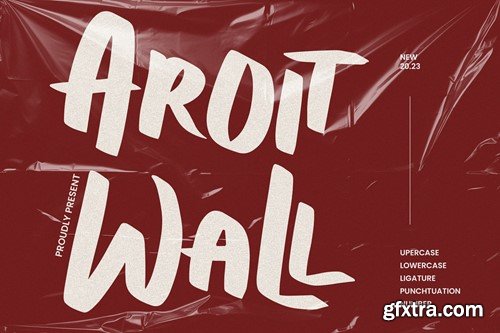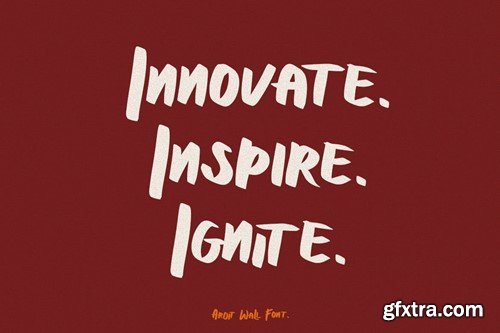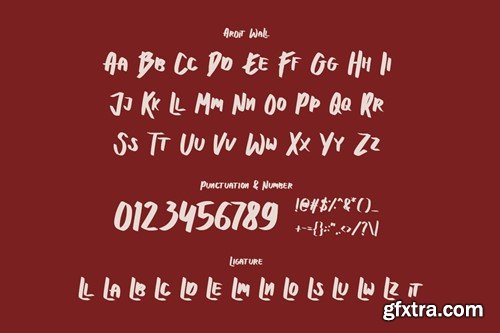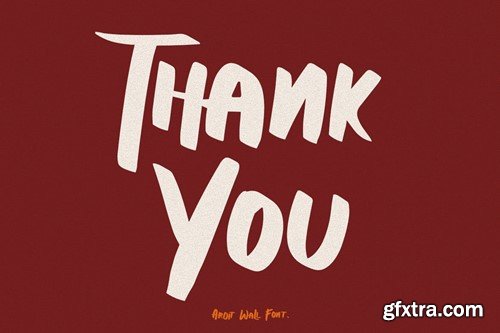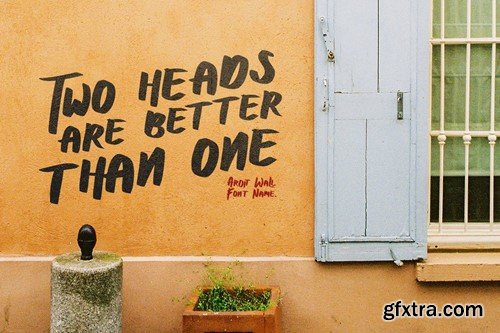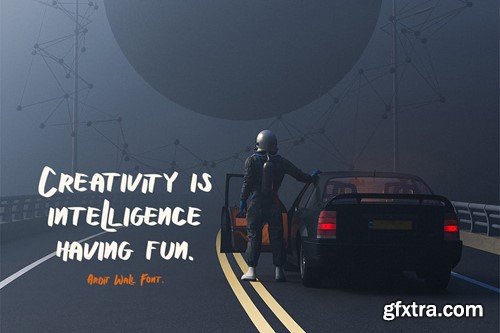
阿罗伊墙 - 现代显示器字体 SF8LZNN
Aroit Wall - Modern Display Font
Aroit Wall is an awesome with modern cutouts, and a dynamic slant. Ideal for Poster titles, menu flyer, Packaging, Logo and monograms or other modern dynamic text. Aroit Wall compares favorably with legibility and size, creating the effect of power. Designed as a fast and dynamic font, but with a slightly different font design, check it out and grab it right away. Download Aroit Wall for your next project today. Featured: File Included : Thank you for checking and I hope you enjoy it. Always put your heart into it and don’t worry about trying. I hope you have as much fun using it as I did making it